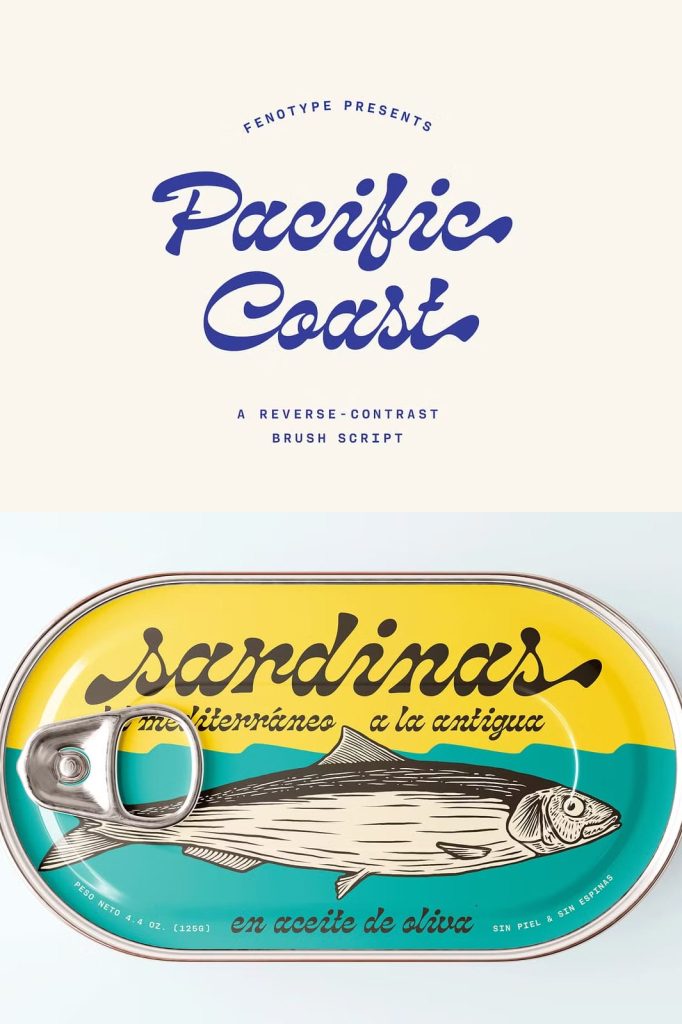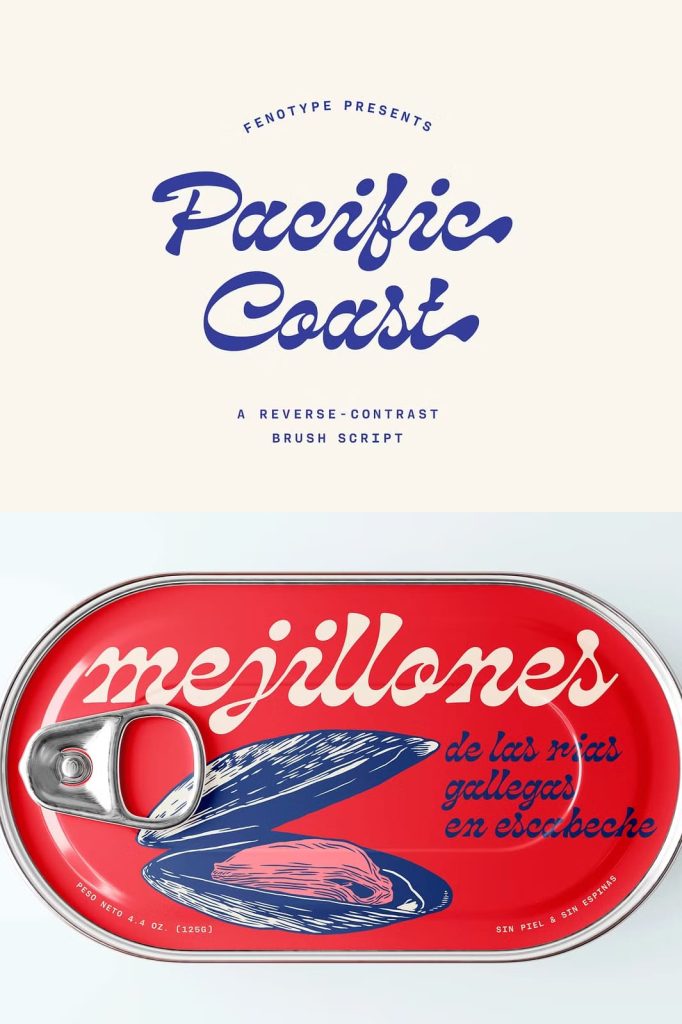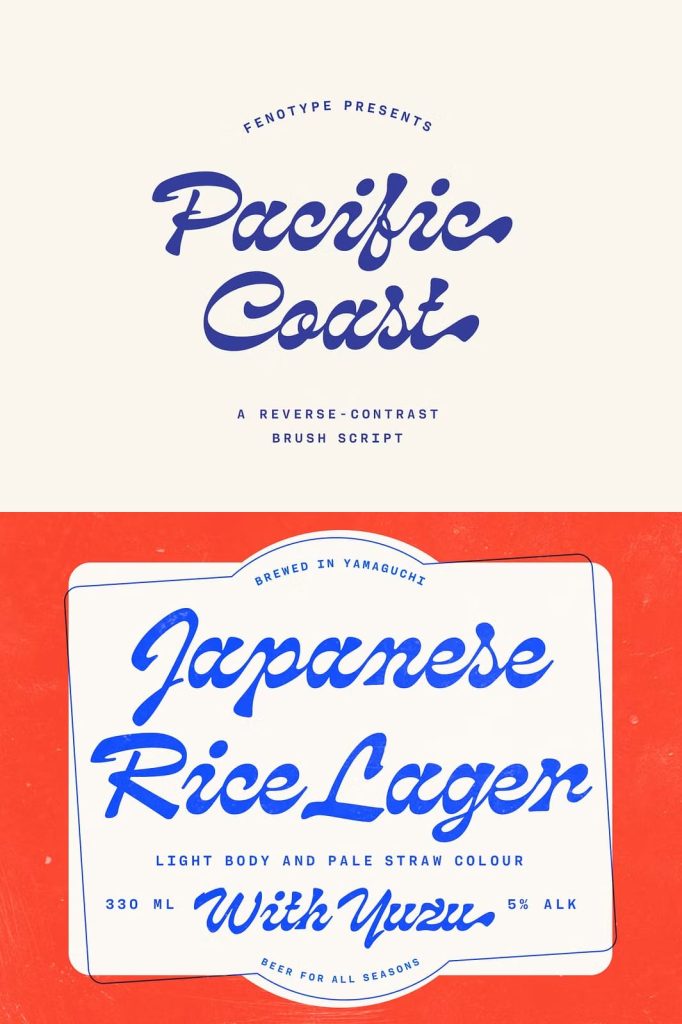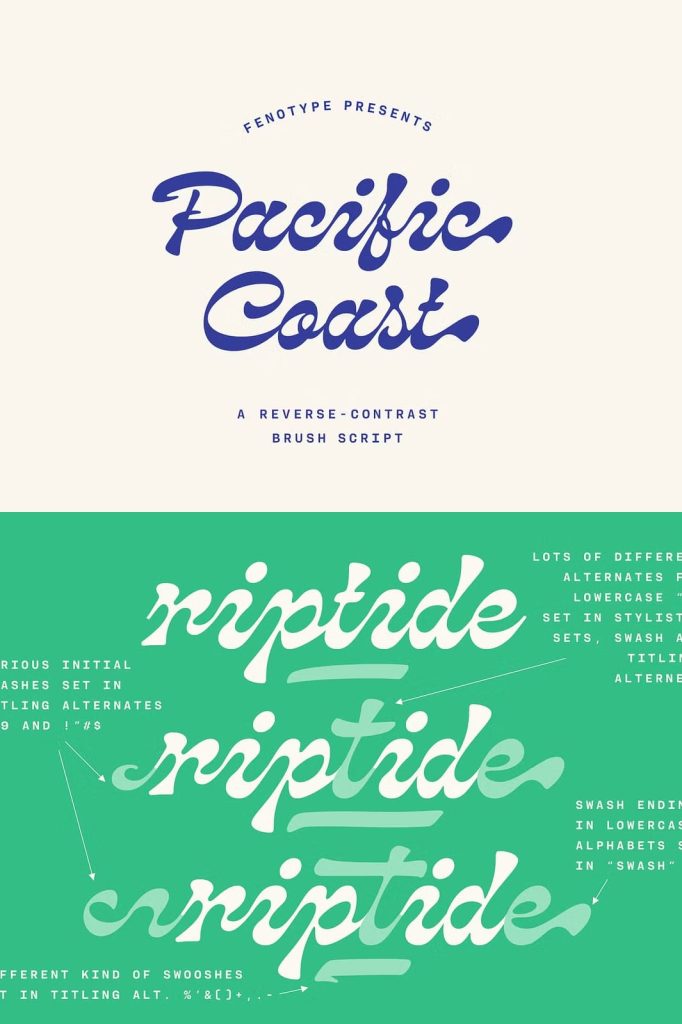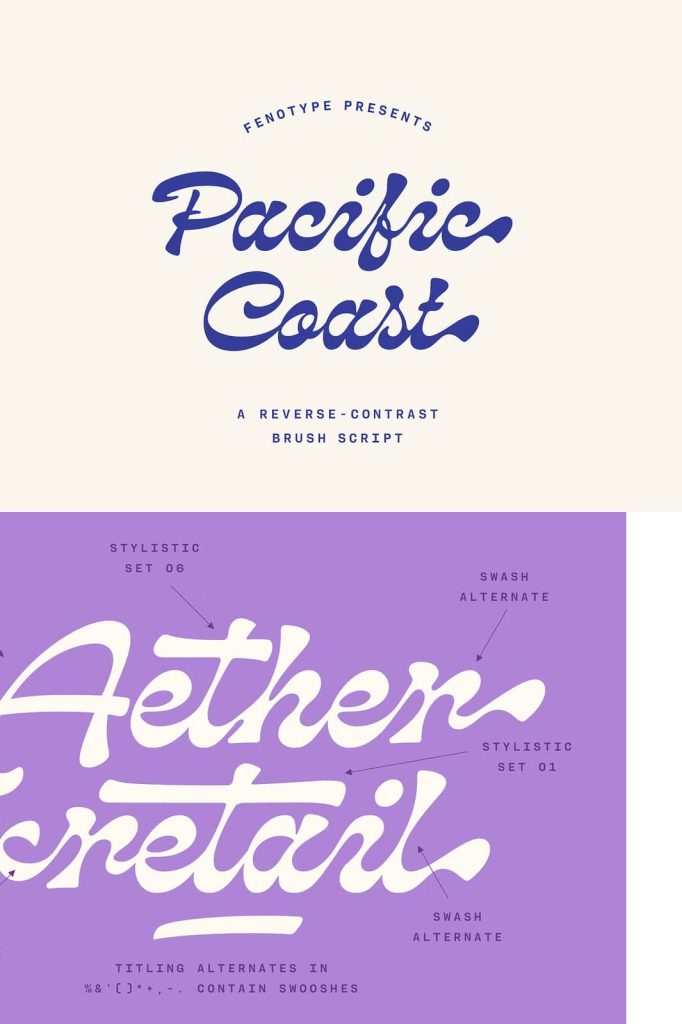
Pacific Coast is a reverse-contrast brush script with a mellow and smooth summer vibe. Feel the Pacific waves and warm breeze as you type with Pacific Coast. It’s a distinctive and stylish choice for packaging, labels, posters, and headlines. Pacific Coast is equipped with several OpenType features. Contextual Alternates help maintain smooth connections between certain character combinations and are automatically activated. Additionally, it offers a wide range of Swash, Stylistic, and Titling Alternates for alternative uppercase characters and ampersand.